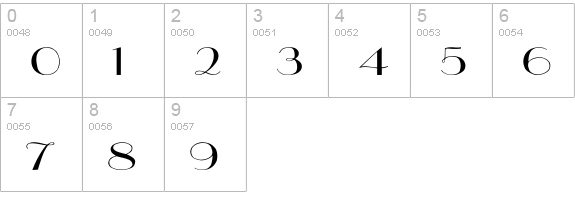
EastSide Wd Font Details
EastSide Wd is a stunning and unique font that effortlessly combines modernity and elegance. Its clean lines and sleek curves give it a sophisticated and contemporary look, making it perfect for a wide range of design projects. Whether you're creating a logo, branding materials, or promotional materials, EastSide Wd will add a touch of professionalism and style. What sets EastSide Wd apart from other fonts is its versatility. It can be used for both headlines and body text, making it ideal for various design applications. Its legibility ensures that your message is conveyed clearly, while its distinctiveness adds a subtle flair to your text. One of the best things about EastSide Wd is that it is completely free. Yes, you read that right! This fantastic font is freely available to download at FontsMarket.com. You can now enhance your designs without having to worry about breaking the bank. Just head over to FontsMarket.com and start exploring the endless possibilities that EastSide Wd has to offer. So why wait? Download EastSide Wd today and elevate your designs to a whole new level. Whether you're a professional designer or a typography enthusiast, this font is sure to impress. Don't miss out on the opportunity to add a touch of sophistication and style to your projects. Get EastSide Wd for free at FontsMarket.com and let your creativity shine.